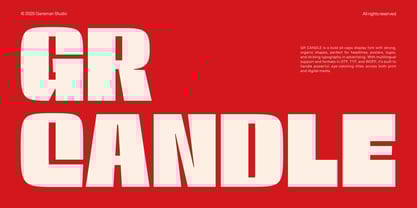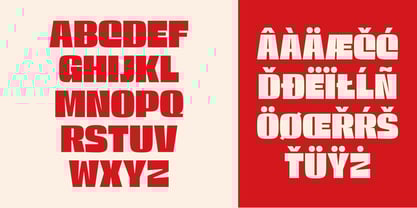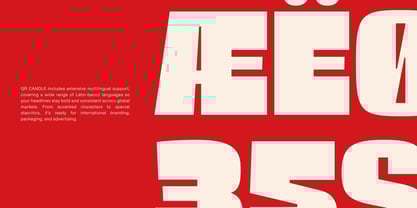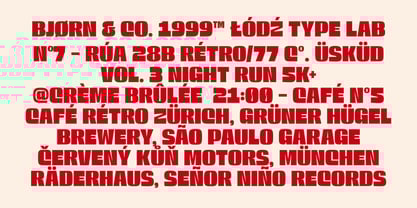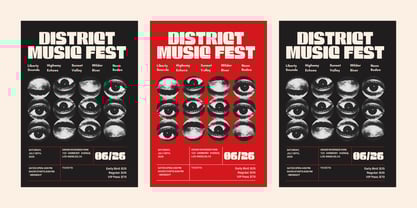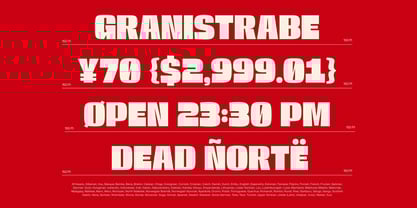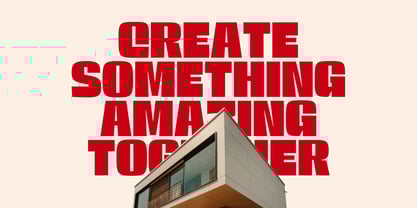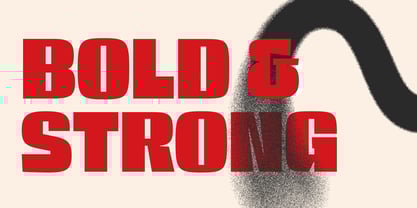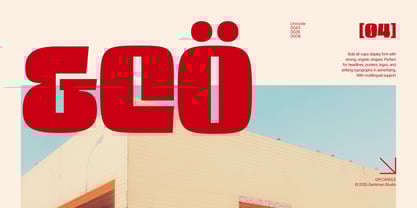
GR Candle
by Garisman Studio
The GR Candle Font Family was designed by Risman Ginarwan and published by Garisman Studio. GR Candle contains 1 styles. More about this family
GR Candle is a striking sans serif display font crafted for impactful, modern headlines. Featuring a robust regular style, it showcases simple yet confident letterforms that excel in various applications, including logos, packaging, music posters, film titles, magazine covers, and YouTube thumbnails. Its sturdy and balanced proportions ensure each word commands attention without appearing heavy or overly complex. GR Candle is ideal for designers seeking a straightforward headline font that maintains a professional look across both print and digital platforms. If you need a bold sans serif display font for contemporary logos, title designs, and eye-catching headlines, GR Candle is the perfect choice for your next project.
Designers: Risman Ginarwan
Foundry: Garisman Studio